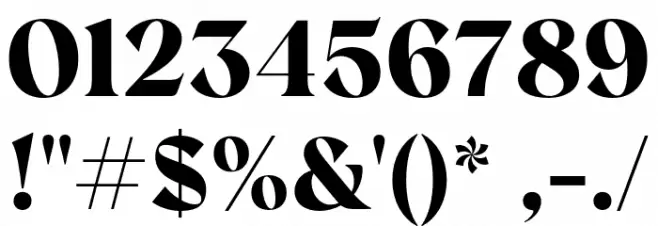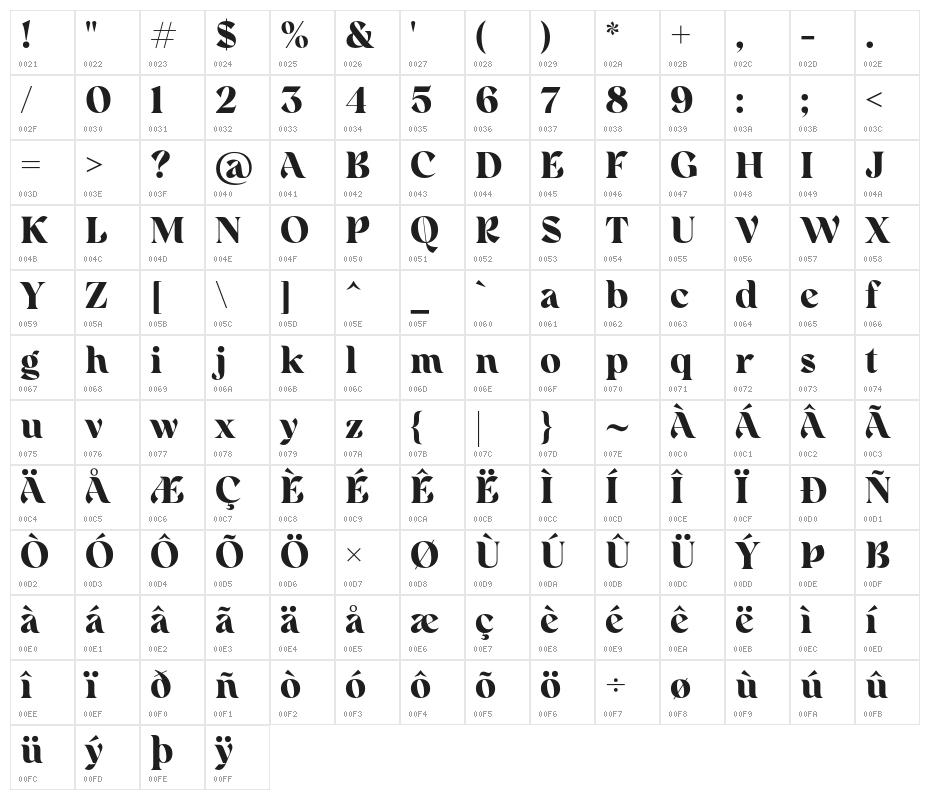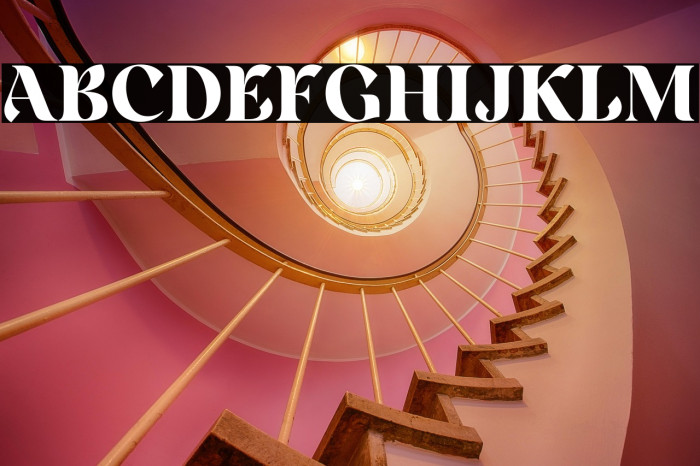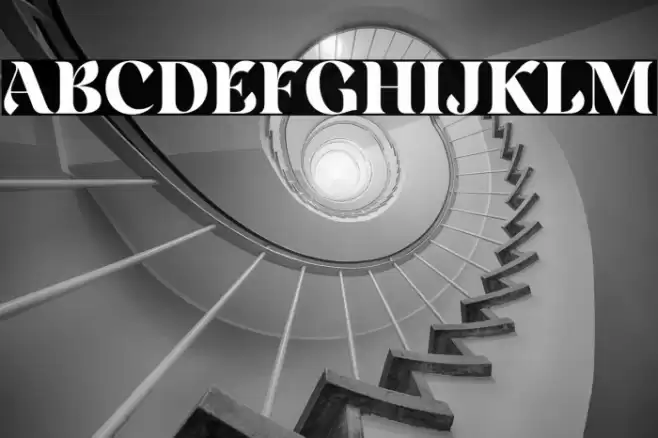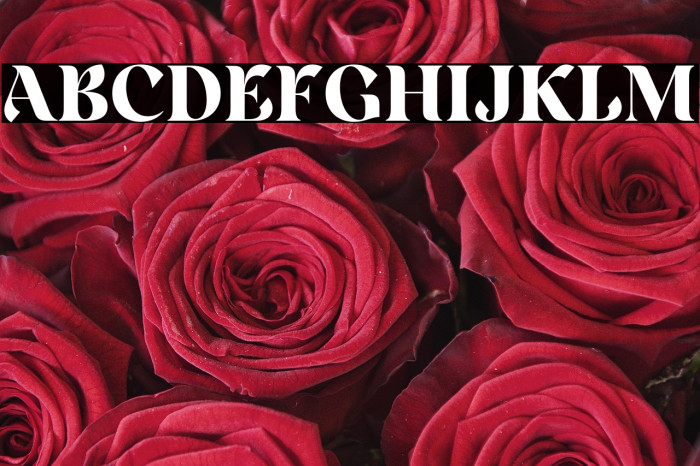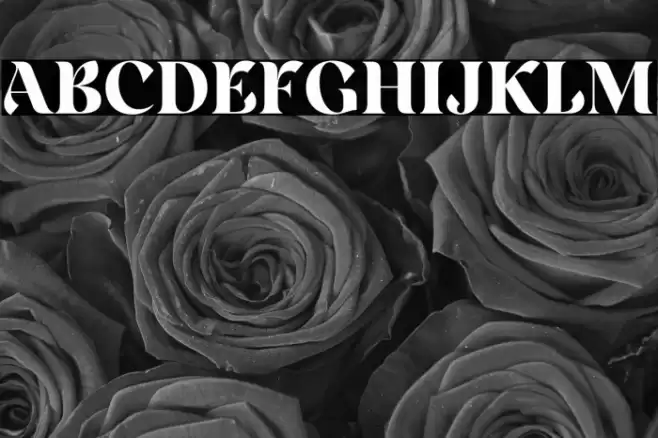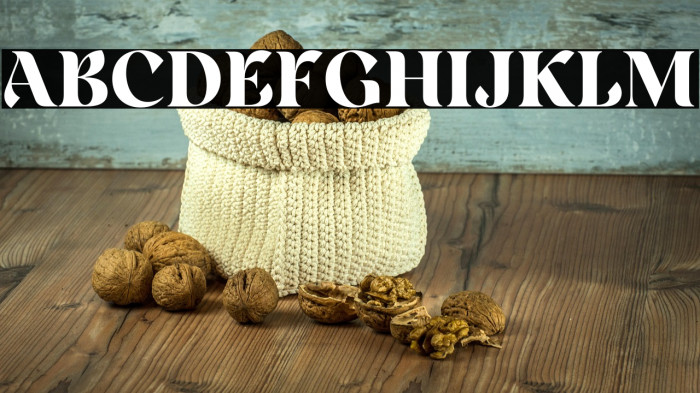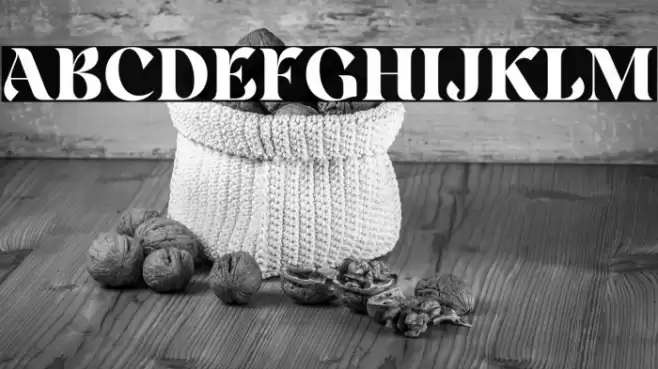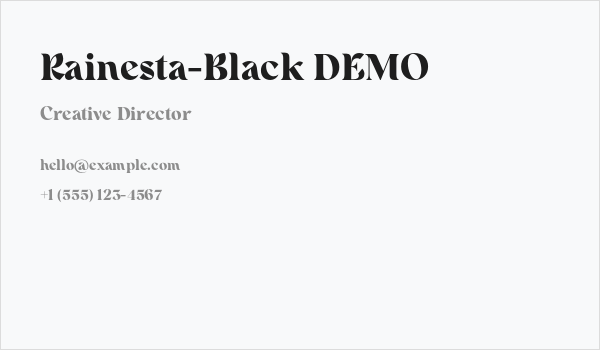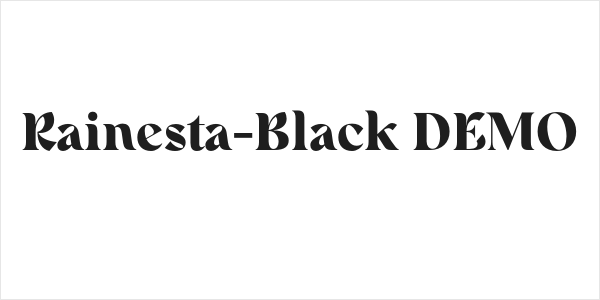
Rainesta-Black DEMO Font
Rainesta-Black DEMO Description
This font features a bold, dramatic style with high contrast between thick and thin strokes, giving it a striking and impactful appearance. The serifs are sharp and pronounced, adding a touch of elegance and sophistication. The uppercase letters are particularly commanding, with a sense of grandeur and authority. The lowercase letters maintain a consistent style, offering a balanced and cohesive look. The numerals are equally bold, ensuring visibility and readability. Special characters are designed to complement the overall aesthetic, making this font suitable for a variety of creative applications.
| Proposed Projects | Ideal for branding, headlines, posters, and editorial design where a strong visual impact is desired. |